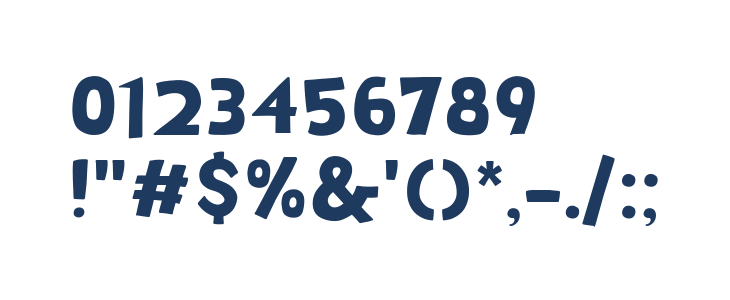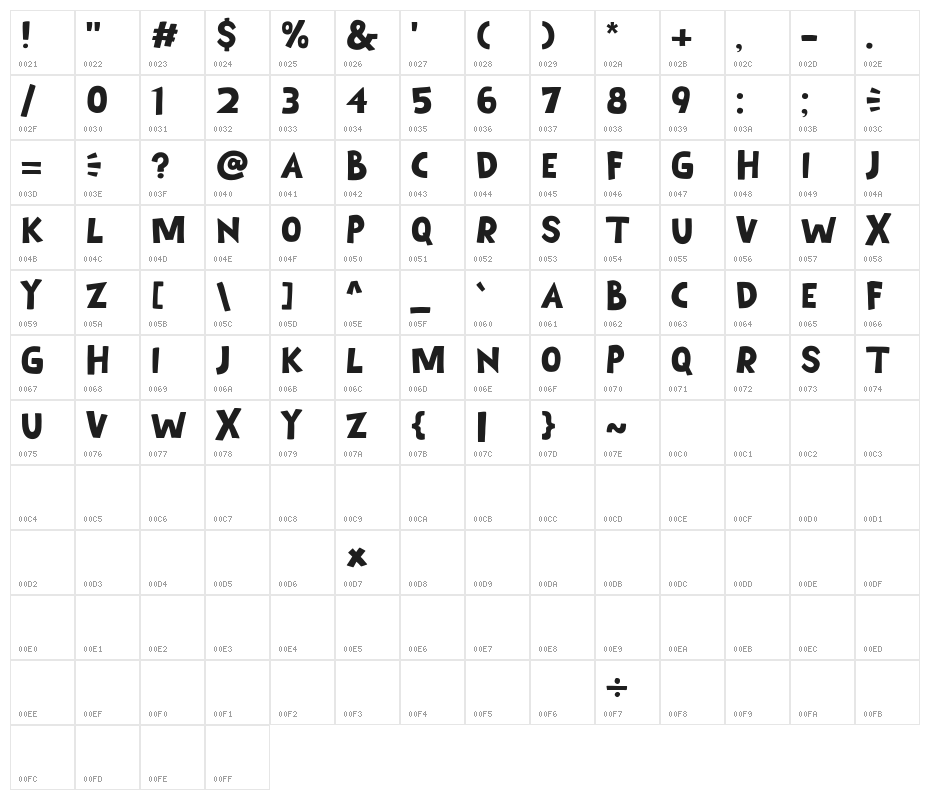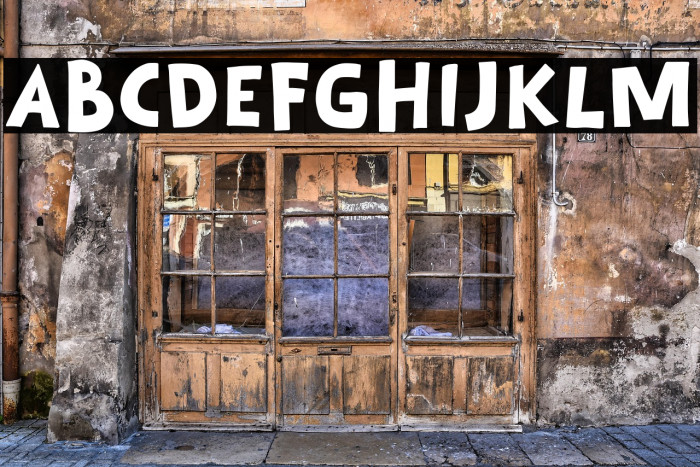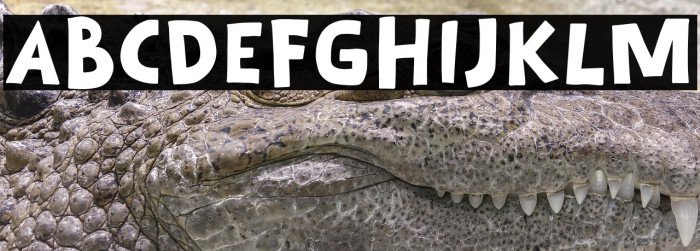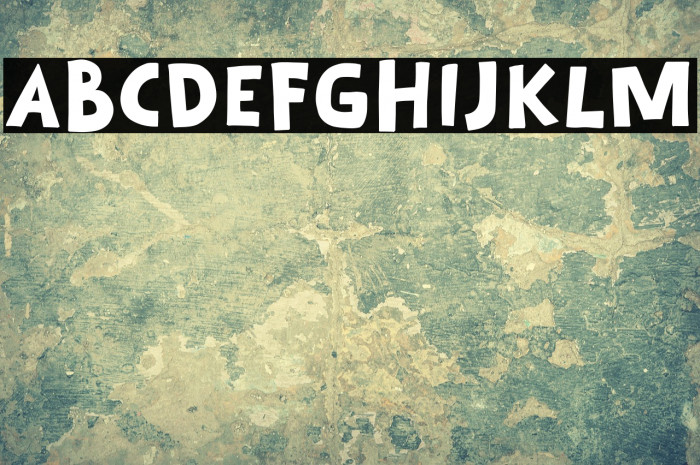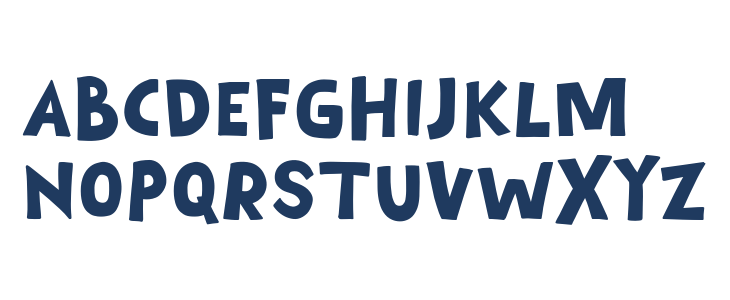
Birdgo Font
| Stile generale | Playful, Whimsical |
| Caso d'uso | Headlines, Posters, Branding |
| Progetti proposti | Ideal for children's books, playful branding, posters, and creative invitations. |